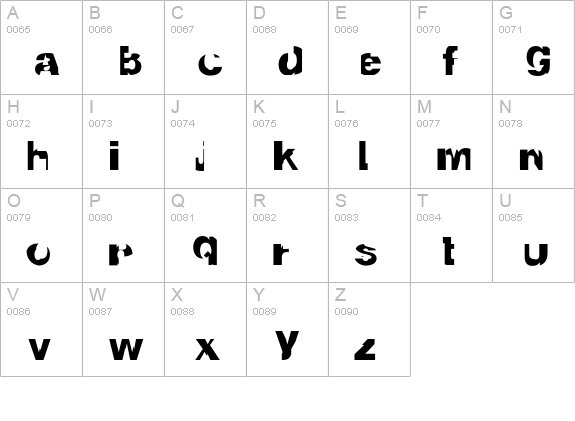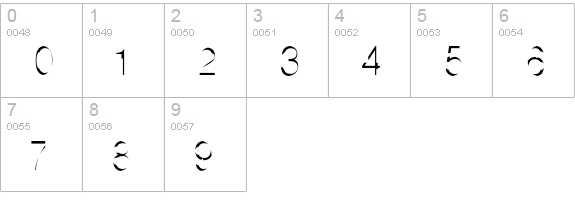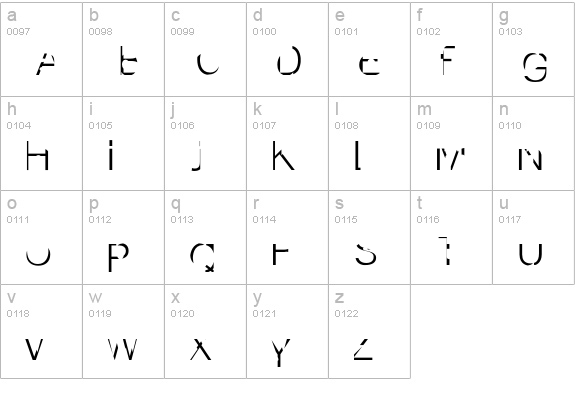
InternationalDisgrace Font Details
InternationalDisgrace is a striking and unique font that captures attention with its bold and daring design. With its edgy and unconventional letterforms, this font exudes a sense of rebellion and non-conformity, making it perfect for projects that require a touch of avant-garde style. This font is not afraid to break the rules and push the boundaries of traditional typography. Each letter is meticulously crafted, with sharp angles and unexpected curves that add a sense of intrigue and mystery to any design. Whether used for headlines, logos, or posters, InternationalDisgrace demands attention and leaves a lasting impression. One of the most appealing aspects of InternationalDisgrace is that it is freely available to download at FontsMarket.com. This means that designers and creatives around the world can access this fantastic font without any cost, allowing them to unleash their creativity without limitations. The font's availability for free download ensures that it can be used by both professionals and beginners, making it accessible to all. With its unconventional and rebellious nature, InternationalDisgrace is the perfect font for projects that aim to challenge the status quo and make a bold statement. It adds a touch of excitement and dynamism to any design, making it an essential tool for those who want to stand out from the crowd. Whether you are working on a branding project, a magazine layout, or a website design, InternationalDisgrace will add a unique and captivating touch to your work. Download it for free at FontsMarket.com and let your creativity soar to new heights.